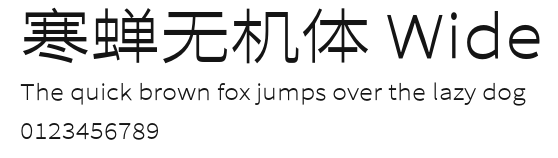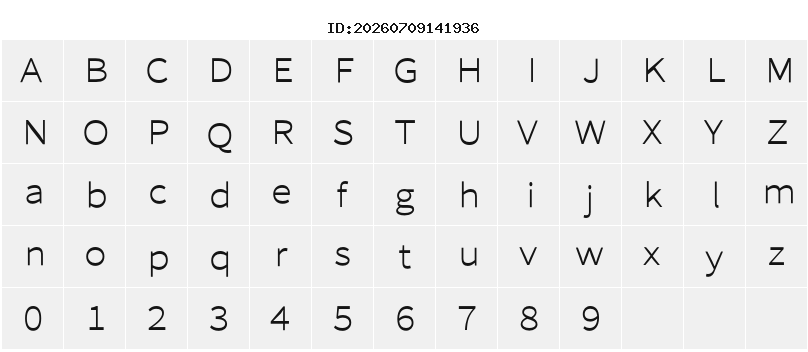
• Font Name: 寒蝉无机体 Wide
• Full Font Name: 寒蝉无机体WideRegular
• Designer: ChillTanhei {Warren2060}; Source Han Sans {Ryoko NISHIZUKA 西塚涼子 (kana, bopomofo & ideographs); Paul D. Hunt (Latin, Greek & Cyrillic); Sandoll Communications 산돌커뮤니케이션, Soo-young JANG 장수영 & Joo-yeon KANG 강주연 (hangul elements, letters & syllables)}
• Manufacturer: ChillType&Adobe
About 寒蝉无机体 Wide.otf
寒蝉无机体 Wide.otf is a modern, elegant sans-serif font designed for ultimate readability and visual harmony. Perfect for branding, headlines, web design, and print materials.